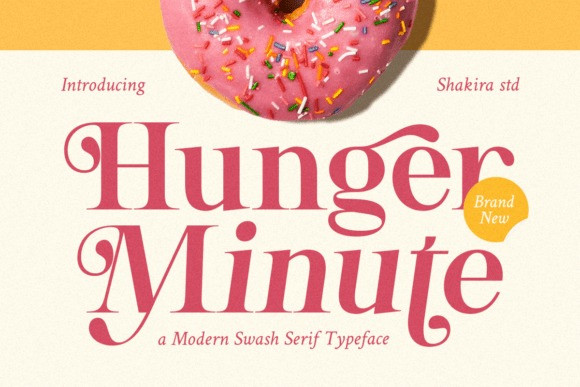
Hunger Minute Font
Hunger Minute Font is a modern serif display that combines elegance and playfulness. Its charming swashes and bold personality make it perfect for logos, product packaging, and editorial branding. Ideal for cafés, bakeries, and lifestyle projects — Hunger Minute delivers creativity with taste.